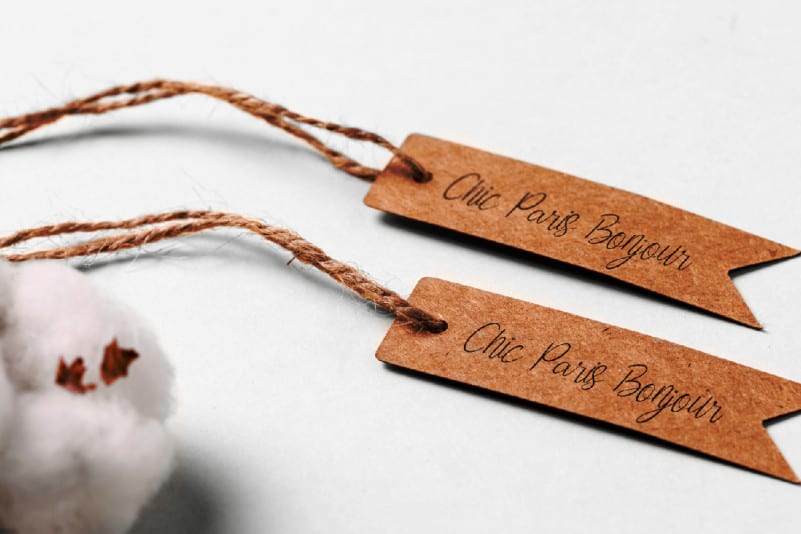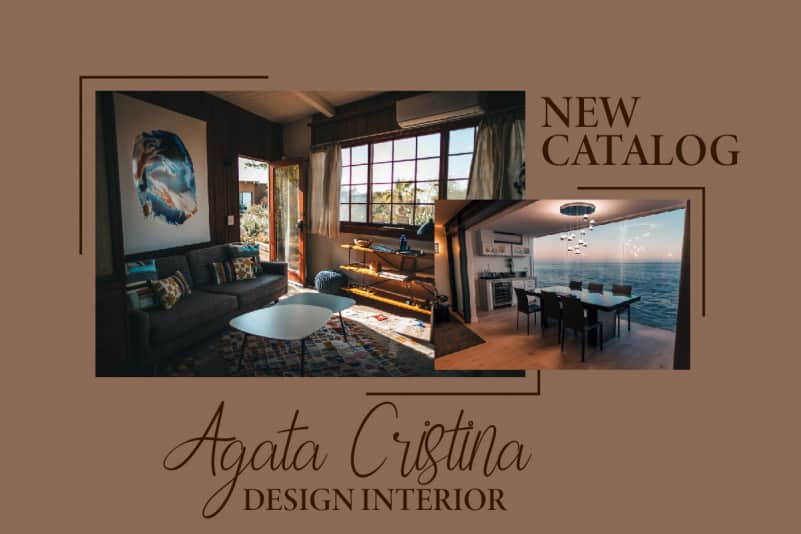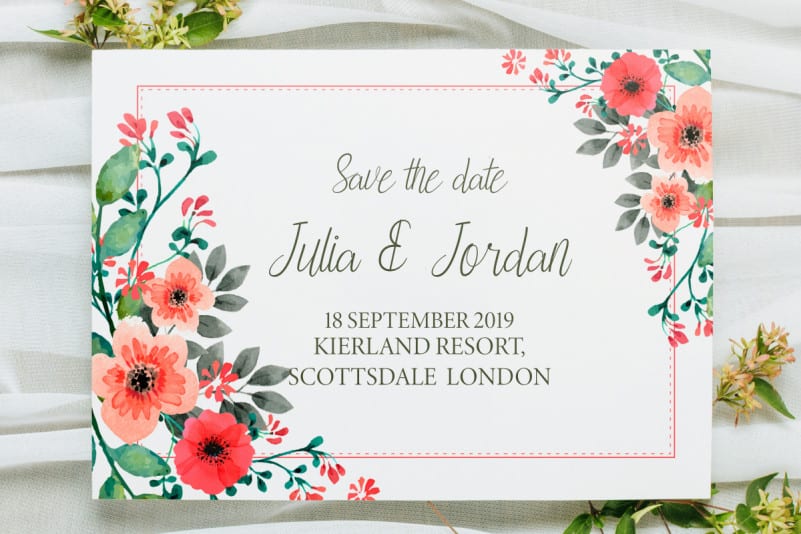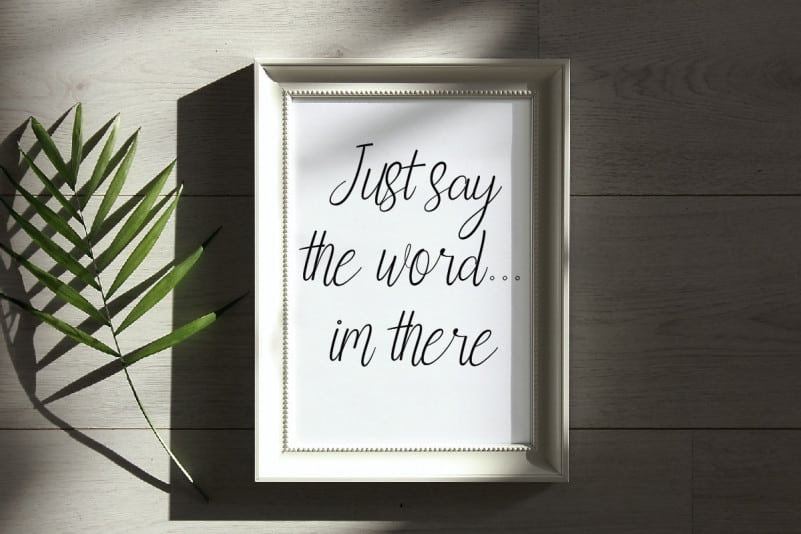
Knowingness Handwritten Font
Knowingness Handwriting Font includes full set of Characters, Numerals and Punctuation. Also it contains ligatures to make it flowless that add more aesthetic fonts to perfect your extraordinary project. This font also contain some special decorative character alternatives to make it more unique and useful. The font will be great for musical, school, teacher, student, kindergarten, drama, movie etc
Knowingness Handwritten Font is perfect for many projects including : Flyer, headings, logos, branding design, quotes, products, cards, stationery, invitations and more! Be a unique in a minute and start creating today!